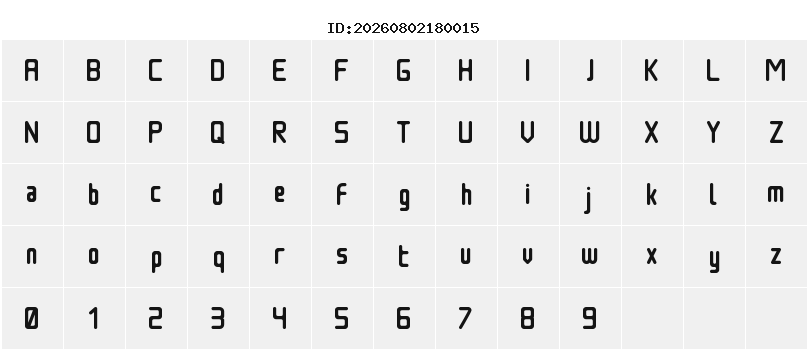
• Font Name: Науадейс
• Font ID: Nowadays:Version 1.00
• Full Font Name: Nowadays Regular
• Version: Version 1.00 May 2, 2010, initial release
• PostScript Name: Nowadays
About Науадейс.ttf
Науадейс.ttf is a modern, elegant sans-serif font designed for ultimate readability and visual harmony. Perfect for branding, headlines, web design, and print materials.